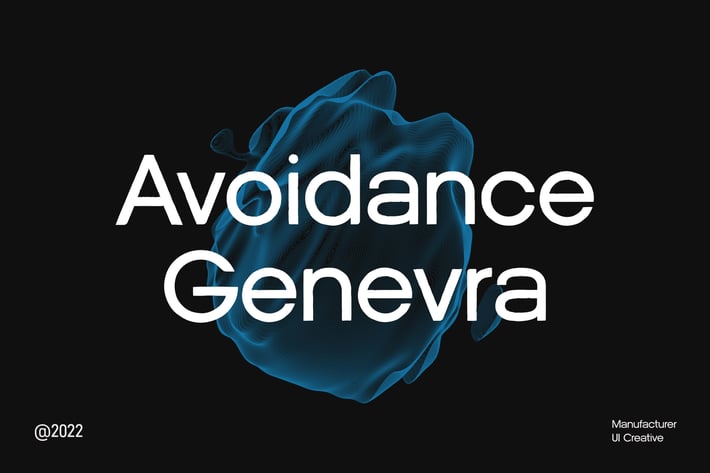
Avoidance Genevra Sans Serif Font Family
Introducing our new product the name is Avoidance Genevra Sans Serif Font Family comes with 9 different weights. Modern Sans Serif font that feels beautiful classy, elegant, and modern. This font is perfectly suited for a wide variety of projects, such as signature, stationery, logo, wedding, typography quotes, magazine or book cover, website header, clothing, branding, packaging design, and more. Also for fashion-related branding or editorial design and displays both masculine and feminine qualities.